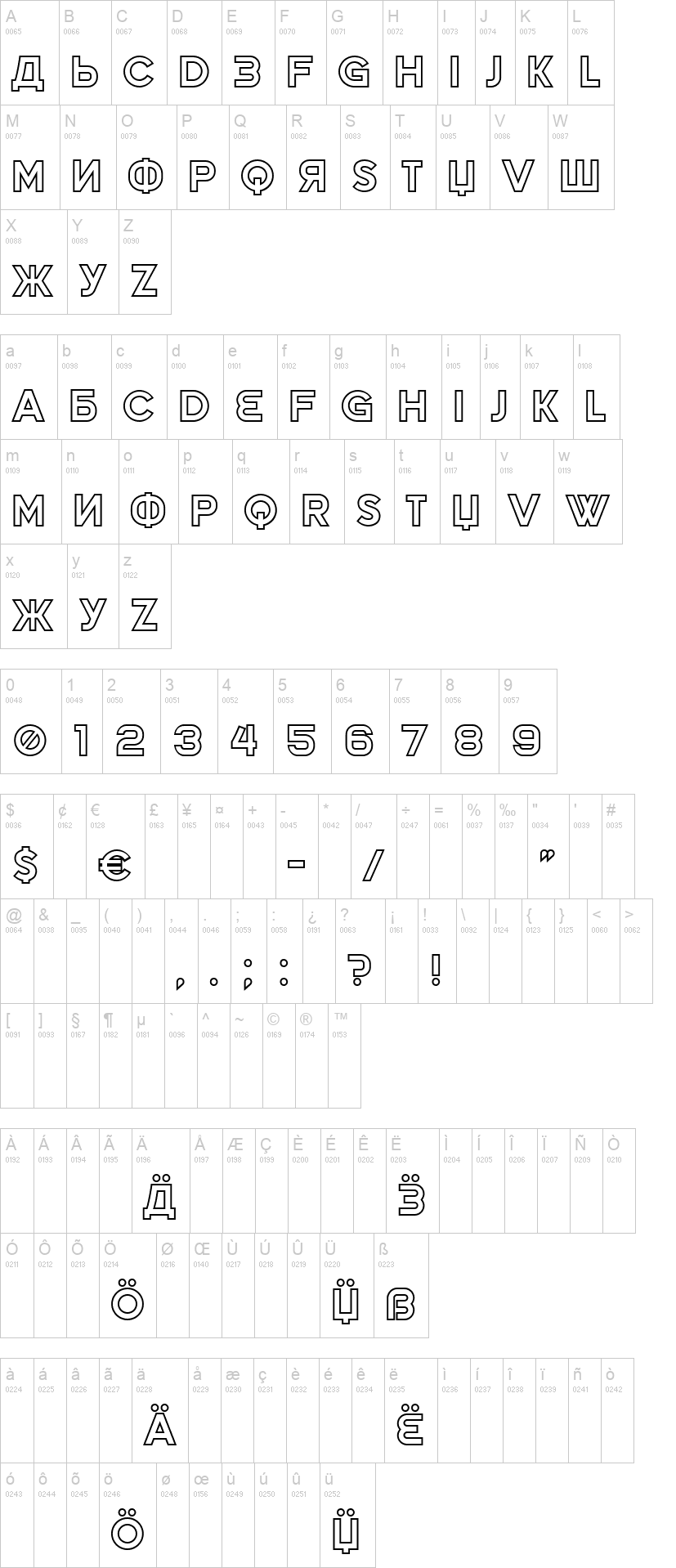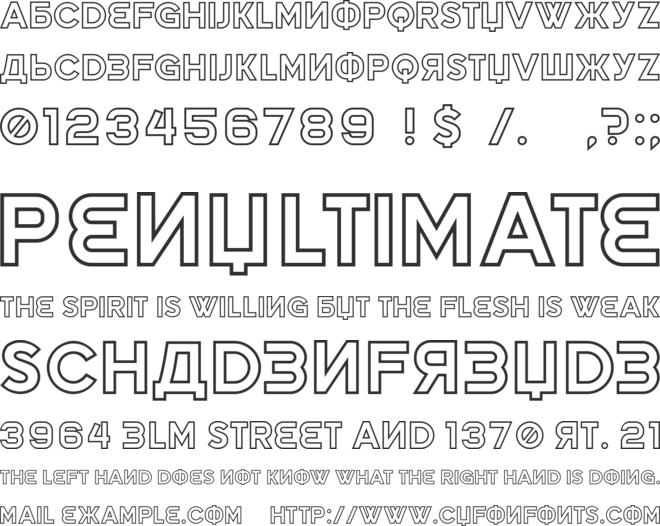
Cold War Font
Cold War Font - In foreign look > russian. Every font is free to download! Cold war € by vladimir nikolic. 26,580 downloads (6 yesterday) free for personal. Web looking for cold war fonts? Click to find the best 3 free fonts in the cold war style. Web black ops one is a low contrast, semi geometric typeface inspired by military stencil lettering.
Cold war € by vladimir nikolic. Every font is free to download! Web black ops one is a low contrast, semi geometric typeface inspired by military stencil lettering. Web looking for cold war fonts? 26,580 downloads (6 yesterday) free for personal. In foreign look > russian. Click to find the best 3 free fonts in the cold war style.
Web black ops one is a low contrast, semi geometric typeface inspired by military stencil lettering. 26,580 downloads (6 yesterday) free for personal. In foreign look > russian. Every font is free to download! Web looking for cold war fonts? Click to find the best 3 free fonts in the cold war style. Cold war € by vladimir nikolic.
In foreign look > russian. Cold war € by vladimir nikolic. Every font is free to download! Click to find the best 3 free fonts in the cold war style. Web looking for cold war fonts?
Web black ops one is a low contrast, semi geometric typeface inspired by military stencil lettering. Cold war € by vladimir nikolic. In foreign look > russian. Web looking for cold war fonts? Click to find the best 3 free fonts in the cold war style.
Web black ops one is a low contrast, semi geometric typeface inspired by military stencil lettering. Cold war € by vladimir nikolic. Web looking for cold war fonts? In foreign look > russian. Click to find the best 3 free fonts in the cold war style.
Cold War Font
Click to find the best 3 free fonts in the cold war style. Web black ops one is a low contrast, semi geometric typeface inspired by military stencil lettering. In foreign look > russian. Every font is free to download! Web looking for cold war fonts?
26,580 downloads (6 yesterday) free for personal. Every font is free to download! In foreign look > russian. Web black ops one is a low contrast, semi geometric typeface inspired by military stencil lettering. Cold war € by vladimir nikolic.
In foreign look > russian. Click to find the best 3 free fonts in the cold war style. 26,580 downloads (6 yesterday) free for personal. Web looking for cold war fonts? Cold war € by vladimir nikolic.
Click to find the best 3 free fonts in the cold war style. Web looking for cold war fonts? Cold war € by vladimir nikolic. Every font is free to download! In foreign look > russian.
Every font is free to download! In foreign look > russian. 26,580 downloads (6 yesterday) free for personal. Web black ops one is a low contrast, semi geometric typeface inspired by military stencil lettering. Cold war € by vladimir nikolic.
Every font is free to download! Web looking for cold war fonts? Cold war € by vladimir nikolic. 26,580 downloads (6 yesterday) free for personal. Click to find the best 3 free fonts in the cold war style.
In Foreign Look > Russian.
Cold War € By Vladimir Nikolic.